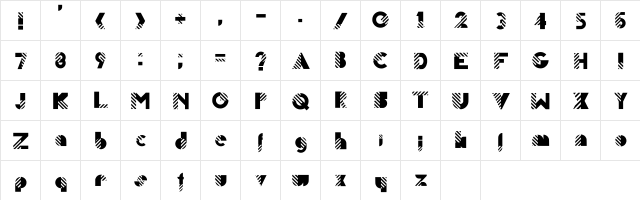
Streetside Regular Font Preview
Streetside Regular
Design Context for Streetside Typeface
Streetside is a composed and adaptable typeface that performs quietly and consistently across a wide range of design contexts.